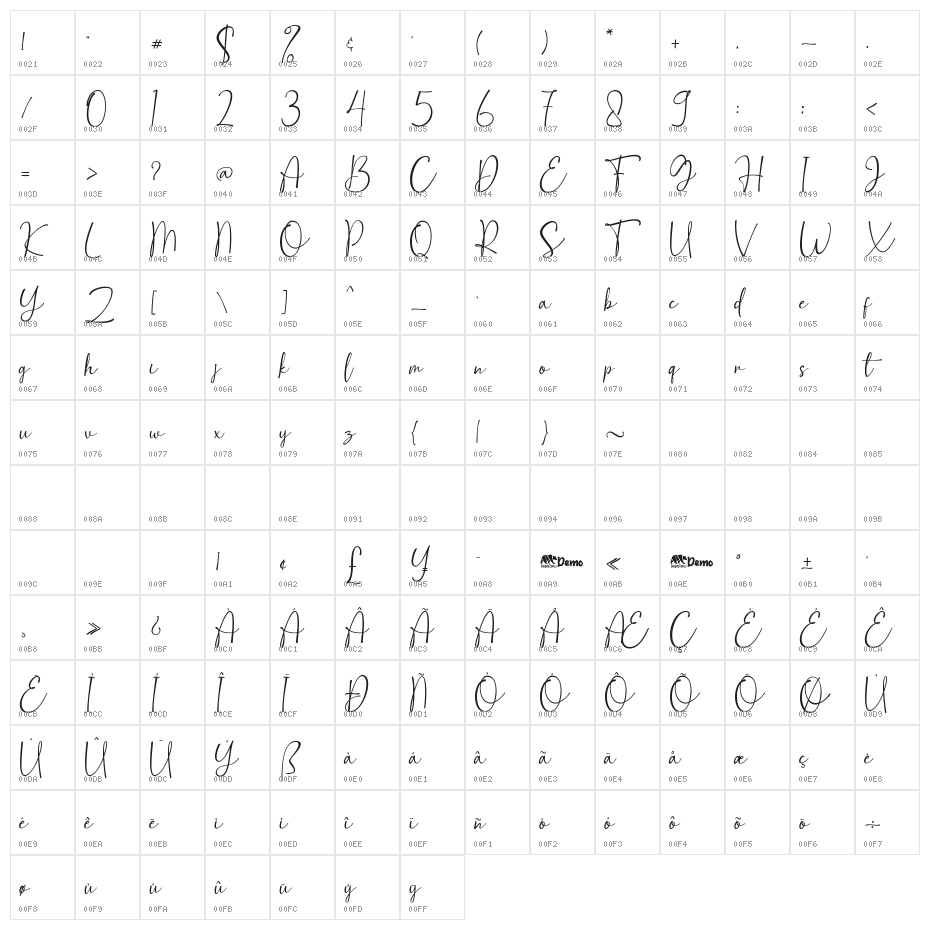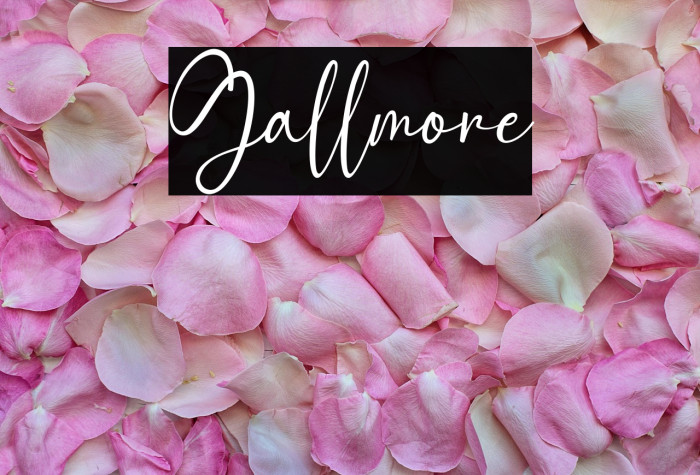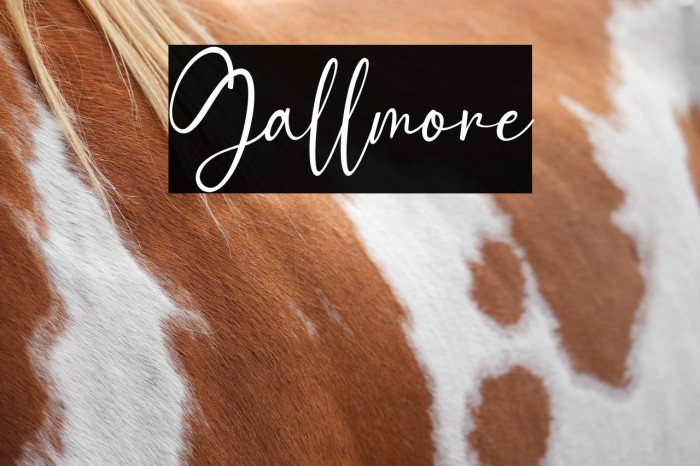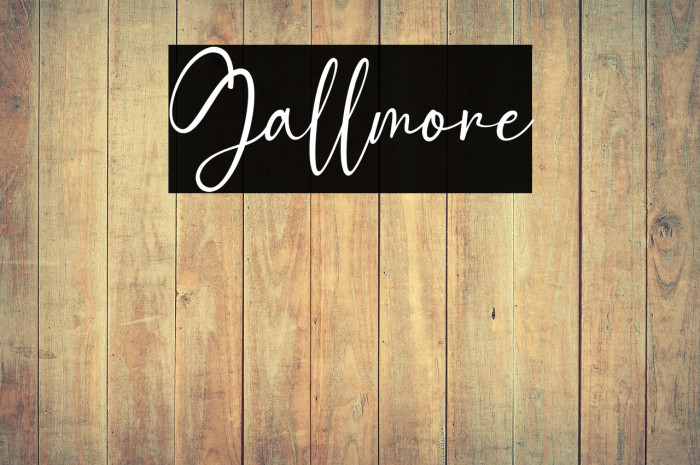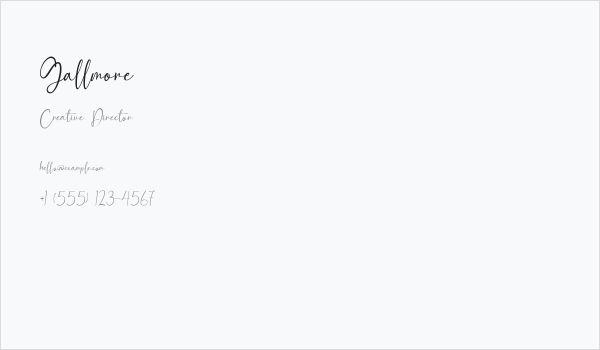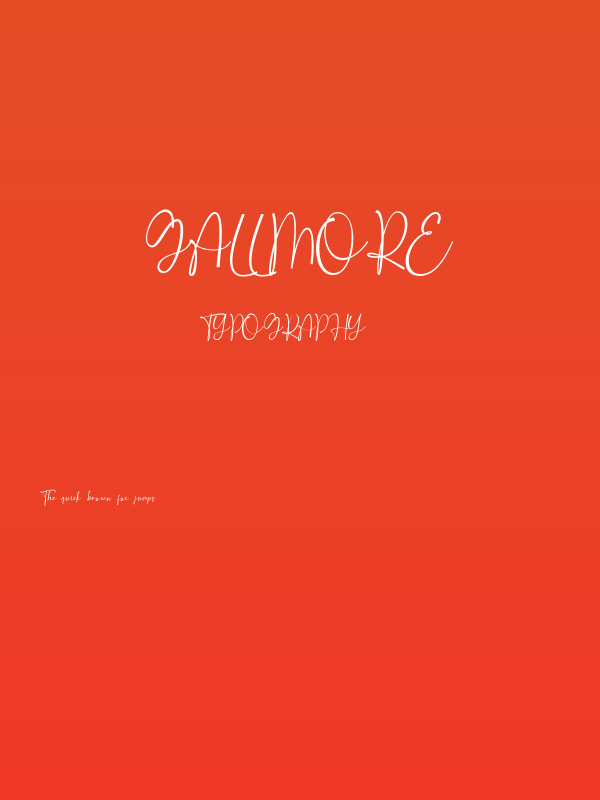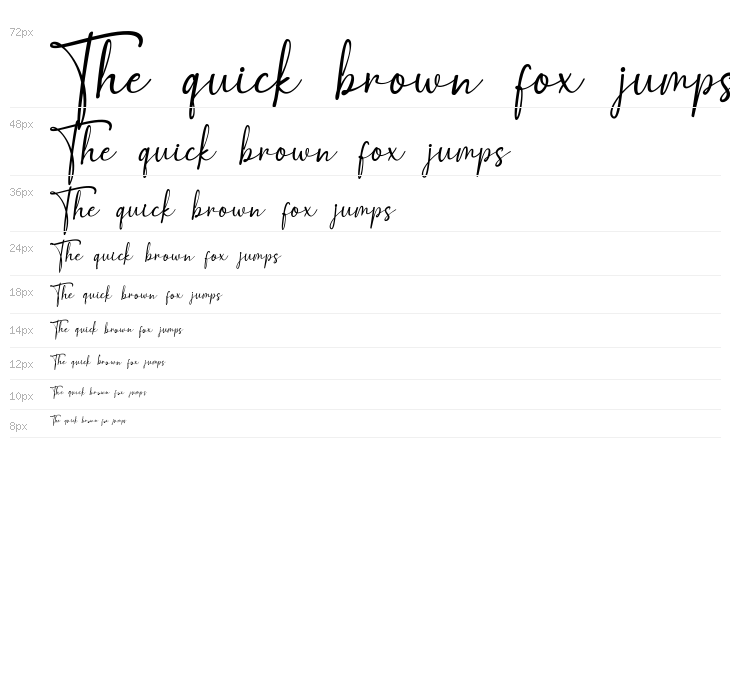
Gallmore Font
Gallmore Description
This font features a playful and elegant handwritten style, characterized by its fluid and dynamic strokes. The uppercase letters exhibit a whimsical flair with varying heights and loops, while the lowercase letters maintain a consistent flow with gentle curves. The numerals are distinct and easy to read, complementing the overall aesthetic. Special characters are creatively integrated, adding to the font's versatility. The design is both modern and approachable, making it suitable for a variety of creative projects.
Use CaseLogos, Headlines, Invitations
Proposed ProjectsIdeal for wedding invitations, greeting cards, branding, and social media graphics.